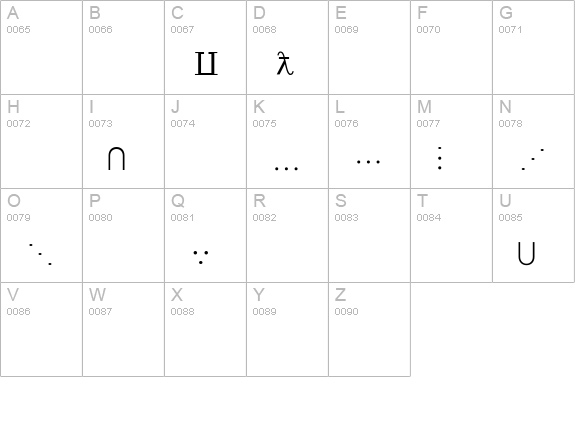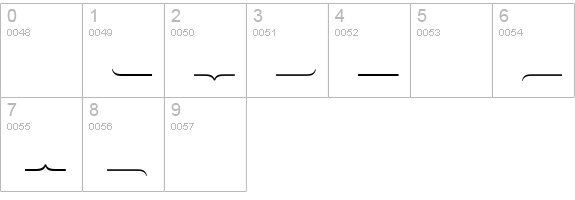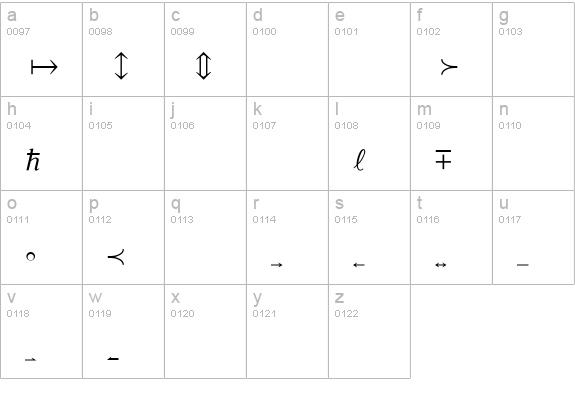
TeXplus TE is a versatile and elegant font that combines simplicity with a touch of sophistication. This font is perfect for a wide range of design projects, from professional documents to creative displays. Its clean lines and balanced proportions make it easy to read, ensuring that your message is delivered with clarity and style. What sets TeXplus TE apart is its unique blend of modern aesthetics and timeless appeal. Its sleek and contemporary design will bring a fresh and modern look to any project, while its classic elements ensure that it will stand the test of time. One of the best things about TeXplus TE is that it is completely free to download. This means that you can enhance your designs with this stunning font without breaking the bank. Whether you are a professional designer or a hobbyist, you can take advantage of this incredible font without any restrictions. To download TeXplus TE for free, simply visit FontsMarket.com, a trusted online platform for font enthusiasts. FontsMarket.com offers a wide range of high-quality fonts, and TeXplus TE is just one of the many gems you will find there. With a simple click, you can add this font to your collection and start using it in your projects right away. Don't miss out on this opportunity to elevate your designs with TeXplus TE. Download it for free at FontsMarket.com and let your creativity soar.